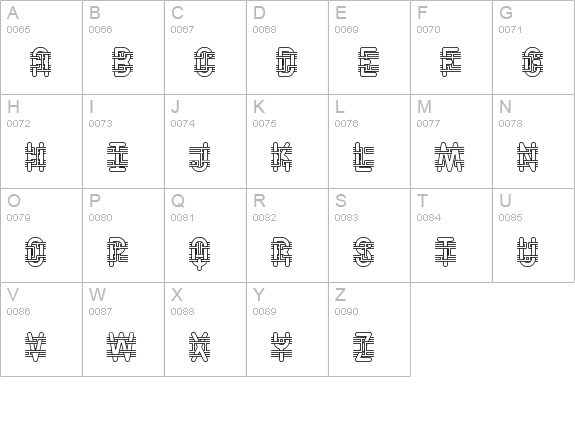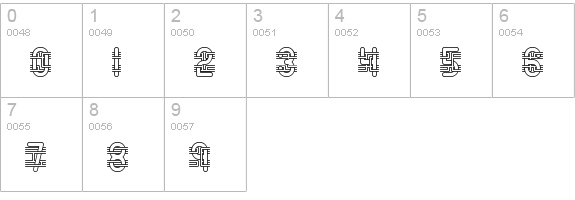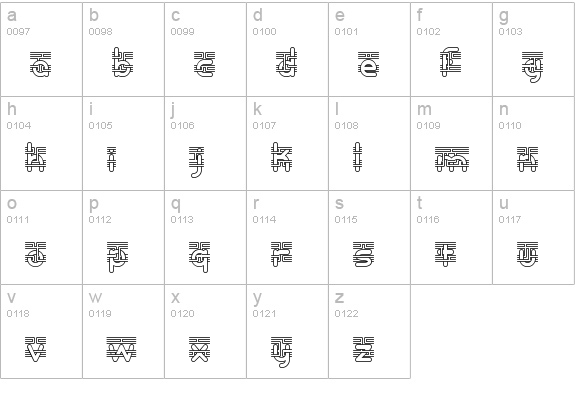
Entangled -BRK- font is a captivating and intricate display typeface that exudes a sense of complexity and mystery. Its unique design features intertwining lines and loops that create a mesmerizing visual effect, perfect for adding a touch of sophistication to your projects. This font is a great choice for logos, headlines, and other creative designs where you want to make a bold statement. Its modern and edgy look will surely grab attention and leave a lasting impression. The best part is that Entangled -BRK- font is completely free to download at FontsMarket.com. So go ahead and elevate your designs with this stunning typeface without any cost. Download it now and let your creativity run wild with Entangled -BRK- font!